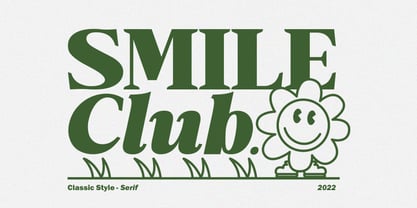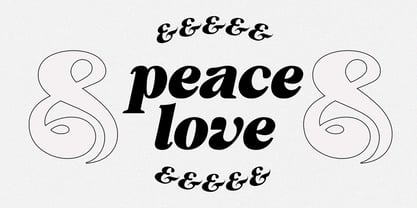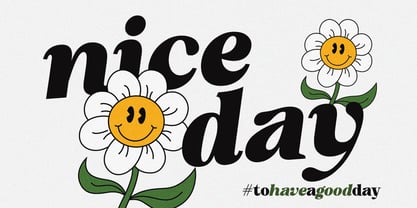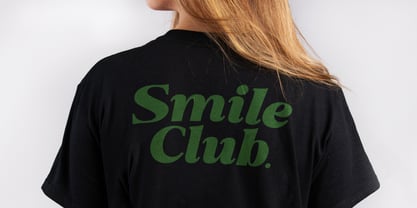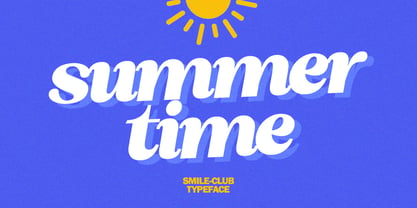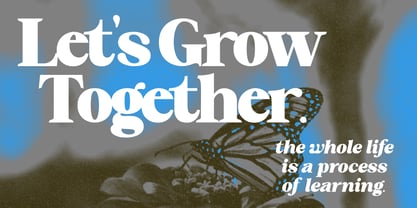
Smile Club
by AMost
The Smile Club Font Family was designed by Aldi Hendarto and published by AMost. Smile Club contains 2 styles and family package options. More about this family
Smile Club is a stylish classic serif font that seamlessly blends timeless elegance with a playful, cheerful character. With its bold proportions and graceful curves, this font is ideal for a variety of applications, including logos, branding, packaging, headlines, posters, editorial designs, apparel, invitations, and product displays. The availability of Regular and Italic styles enhances its versatility, allowing for expressive typography that maintains a classic yet contemporary aesthetic. Perfect for projects that require a touch of sophistication and charm, Smile Club stands out in any design context.
Designers: Aldi Hendarto
Foundry: AMost